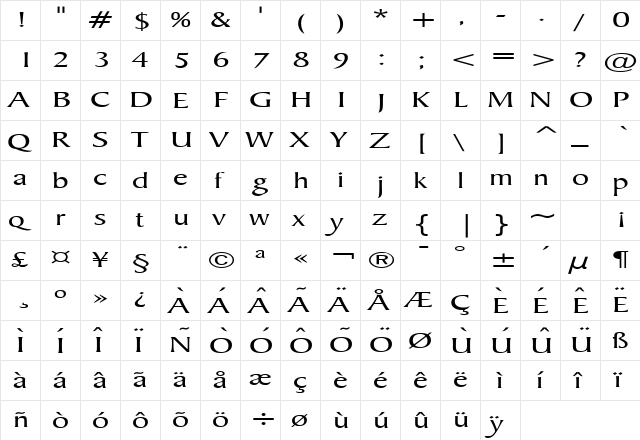
Barrett Extended Normal
Design Context for Barrett Extended Typeface
Barrett Extended takes a measured approach to typography — its balanced proportions and neutral character make it a reliable workhorse for both digital and print work.